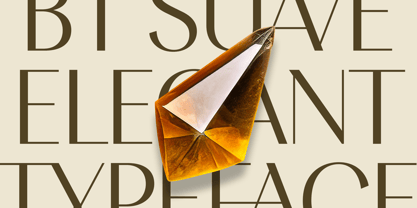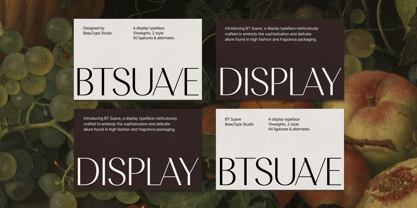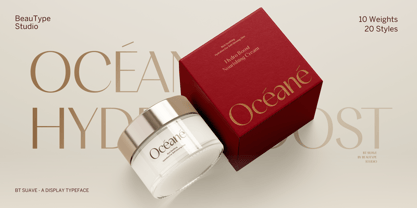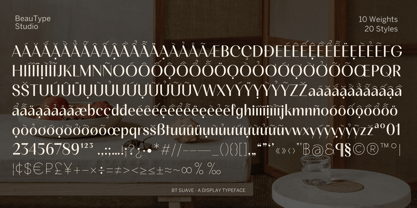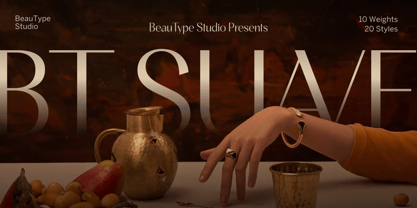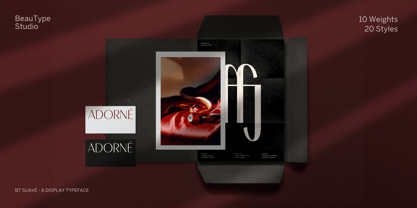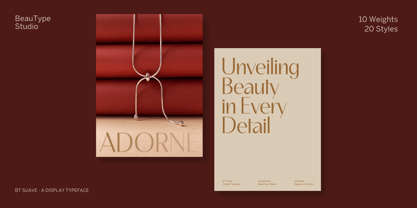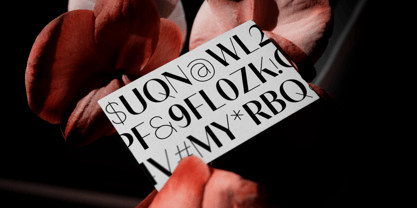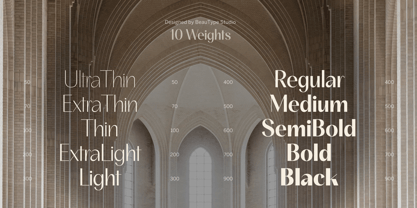
BT Suave
by BeauType
The BT Suave Font Family was designed by and published by BeauType. BT Suave contains 20 styles and family package options.
BT Suave is a unique display font meticulously crafted to evoke a sense of lightness, sophistication, and fluidity in design. With its modern form, high-contrast lines, and attention to detail, BT Suave seamlessly integrates into the branding of fashion labels, cosmetics, and other brands sharing a common visual direction with the typeface. Offering 20 different styles in terms of thickness and slant, BT Suave confidently performs well in diverse environments, catering to complex hierarchical needs when applied in various applications.